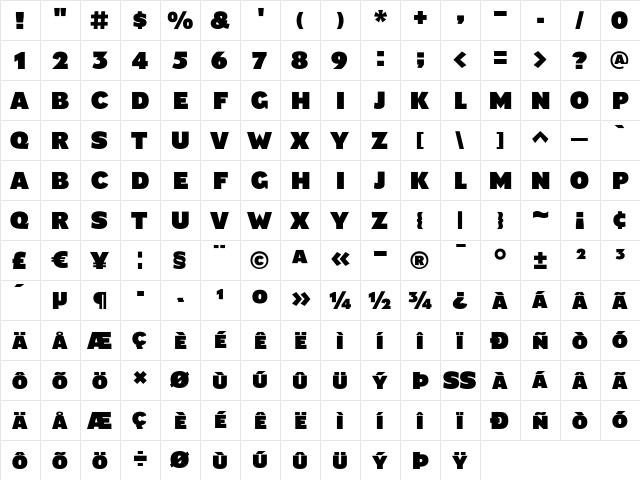
Shire Regular Font Preview
Shire Regular
Shire Regular Font Details
Design Context for Shire Typeface
Shire takes a measured approach to typography — its balanced proportions and neutral character make it a reliable workhorse for both digital and print work.